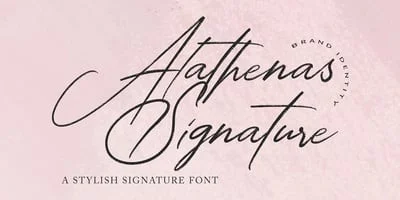
Alathenas Signature Font
Alathenas Signature Font presents designers with an elegant script typeface that embodies personal sophistication and handwritten luxury with artistic grace. However, for commercial use, you must purchase this font. You can download it for free for testing purposes only.
Alathenas Signature Font excels in prestigious design applications including luxury personal branding, high-end fashion signatures, elegant stationery design, sophisticated wedding invitations, exclusive boutique communications, premium jewelry packaging, artistic portfolio headers, distinguished event materials, upscale beauty salon branding, and refined lifestyle campaigns. This graceful typeface brings signature elegance to luxury-focused design projects.
What makes Alathenas Signature Font truly exciting is its perfect capture of sophisticated penmanship with flowing letterforms that evoke the personal touch and artistic refinement of exclusive handwritten correspondence. The font features elegantly crafted characters with signature rhythm and luxurious appeal that convey exclusivity, personal attention, and the timeless sophistication of beautiful handwriting. Its signature personality and artistic character make it ideal for brands seeking personal connection, luxury positioning, and audiences who appreciate handcrafted elegance, artistic expression, and the intimate appeal of personalized communication that reflects individual style and sophisticated taste.
The Alathenas Signature Font family typically includes Regular weight with extensive swashes, ligatures, and decorative alternates that enhance its signature character. These elegant options provide designers with complete script styling while maintaining the font's distinctive handwritten sophistication and artistic presentation across various luxury applications and personal contexts.
Whether you're developing luxury personal branding, creating elegant event materials, or designing sophisticated campaigns, Alathenas Signature Font delivers the signature authority and artistic sophistication that luxury projects require. Its exceptional elegance and personal appeal make it invaluable for designers working with luxury brands, personal services, and high-end organizations requiring typography that celebrates handwritten artistry, personal expression, and the timeless elegance of beautiful signature style that creates intimate connections and reflects the sophisticated refinement of those who appreciate the personal touch and artistic beauty of elegant handwritten communication.